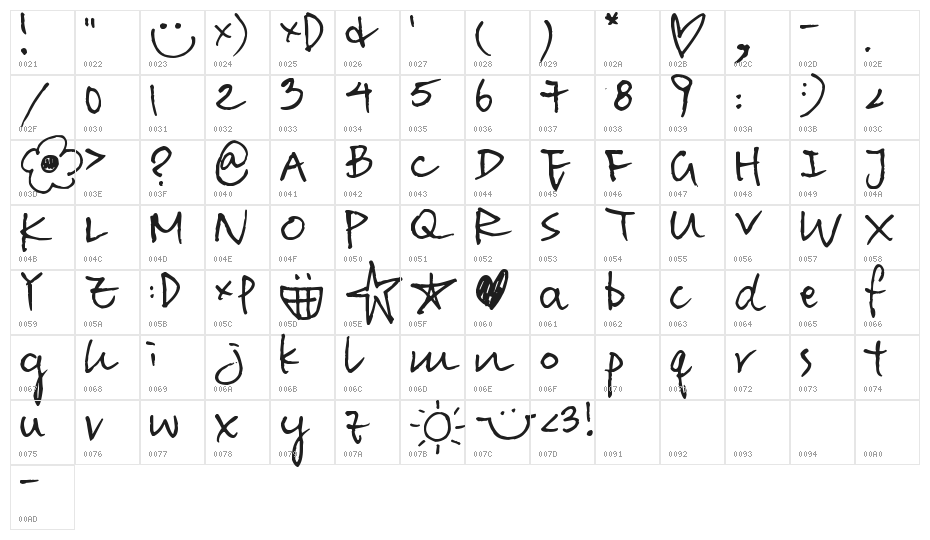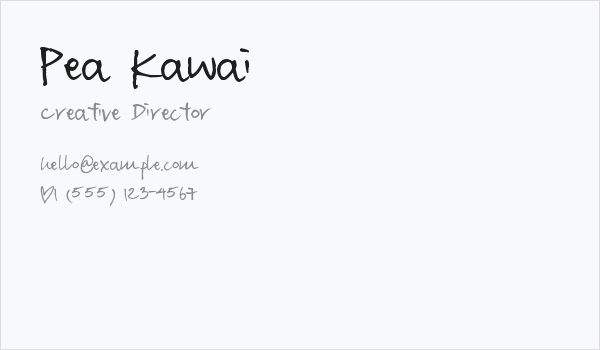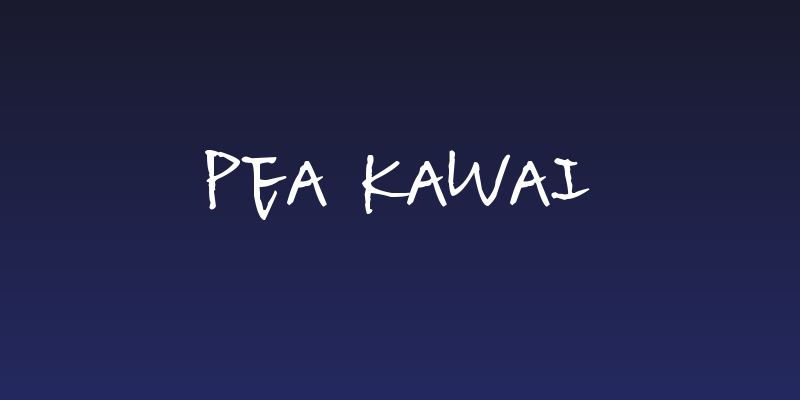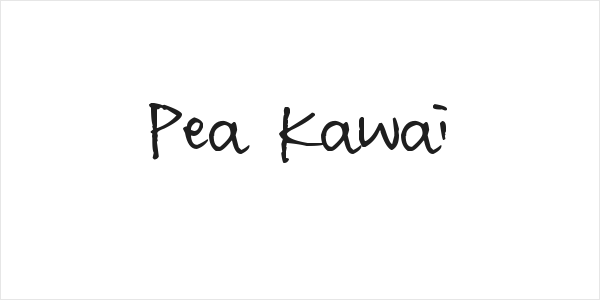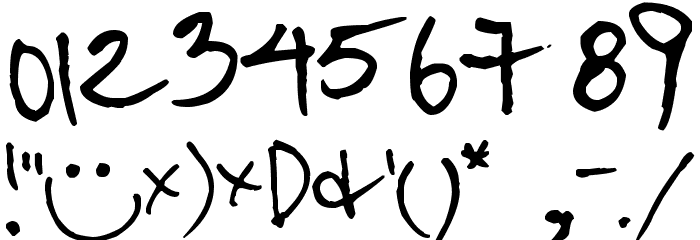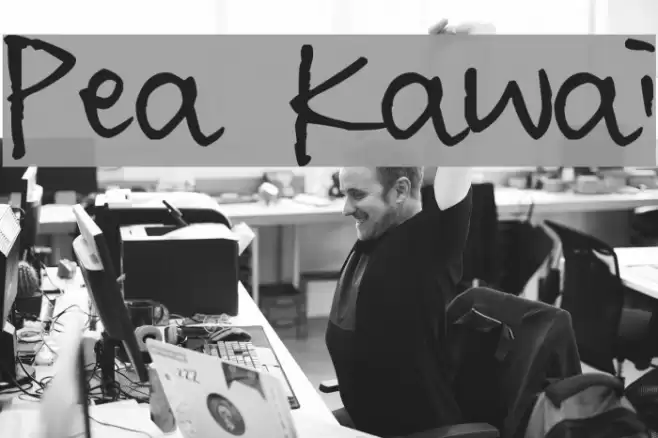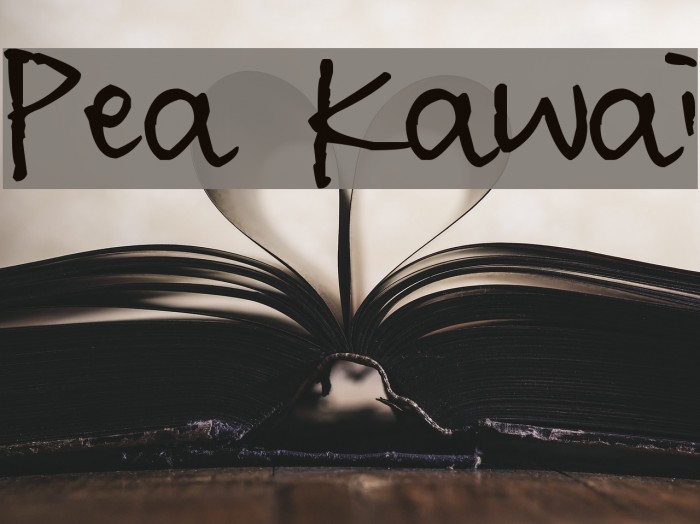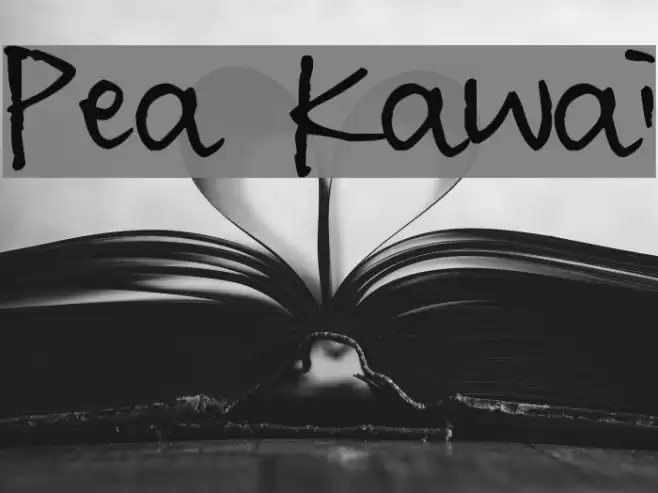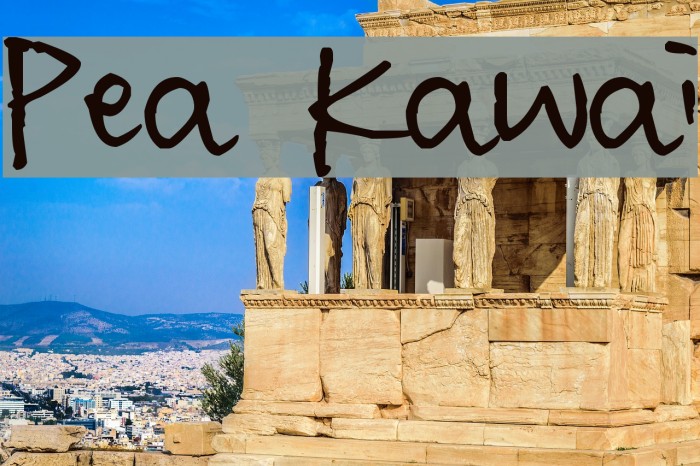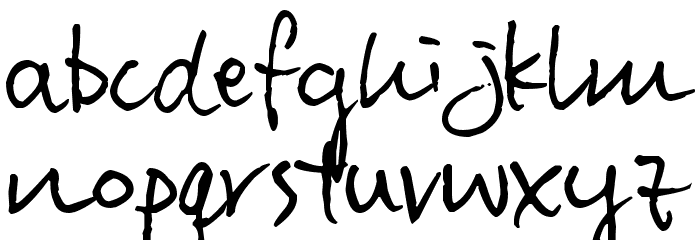
Pea Kawai Font
This font exudes a playful and casual handwritten style, characterized by its loose and informal strokes. The letters are slightly irregular, giving it a personal and authentic feel, reminiscent of a quick note or a casual letter. The uppercase and lowercase letters maintain a consistent flow, while the numbers and special characters complement the overall aesthetic. The font's organic and spontaneous appearance makes it ideal for projects that require a touch of personality and warmth.
| Use Case | Greeting cards, Personal notes, Informal invitations |
| Proposed Projects | Great for greeting cards, personal notes, informal invitations, and creative projects that require a friendly and approachable vibe. |